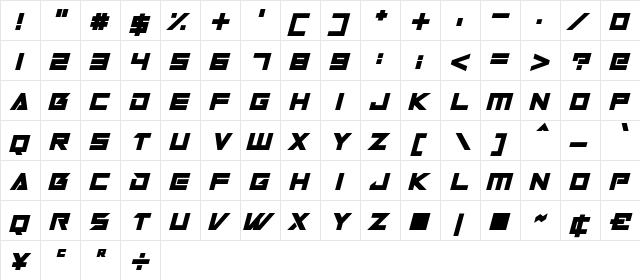
Robot World Italic
| Designer | Darrell Flood |
Design Context for Robot World Typeface
Robot World is a composed and adaptable typeface that performs quietly and consistently across a wide range of design contexts. The dynamic lean of this cut emphasises speed and emphasis in any layout.
Pro Tip: Use Robot World for emphasis, pull quotes, and subheadings where its slanted energy can add rhythm to the layout.